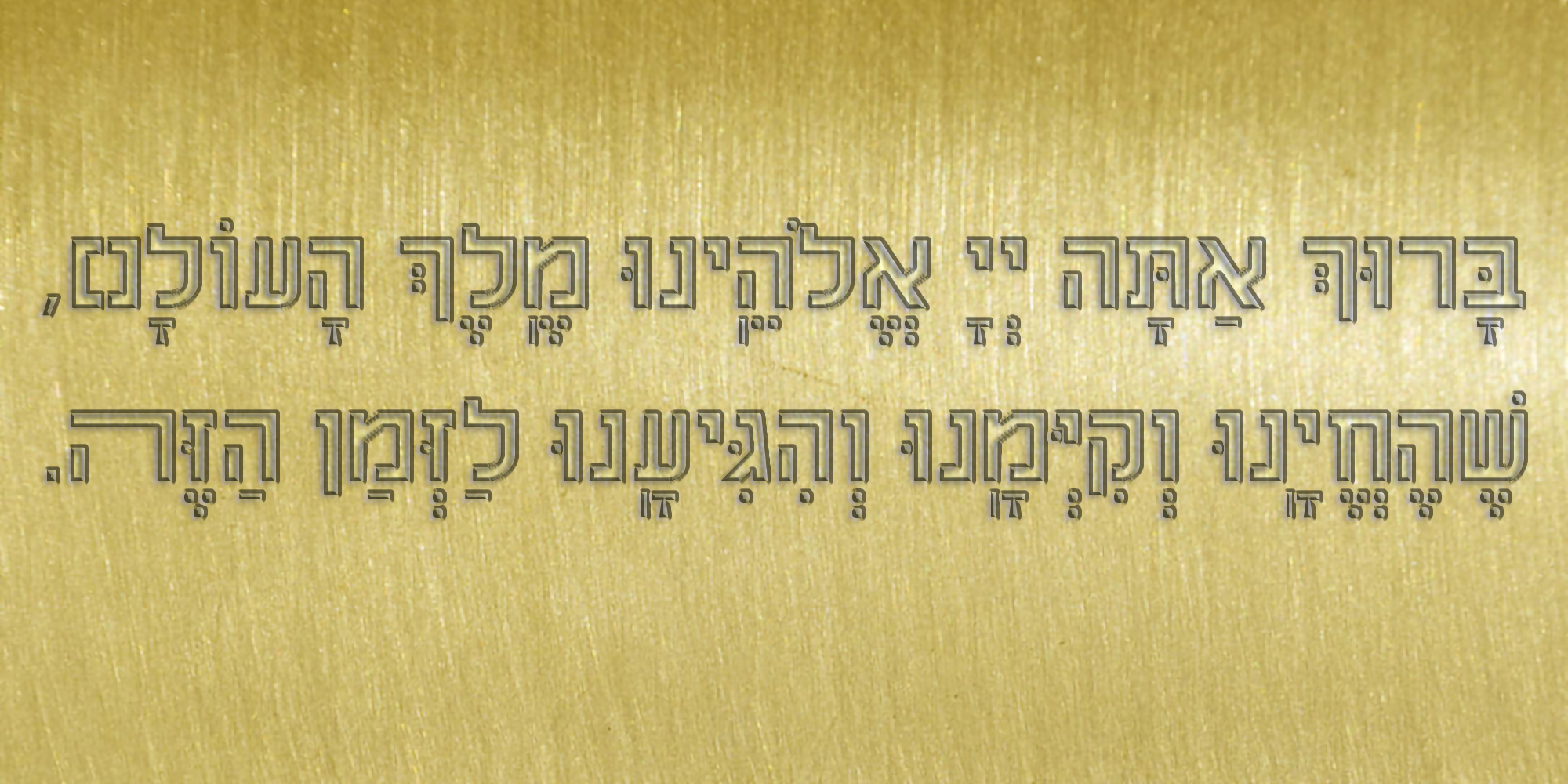
Hebrew Stencil Font is ideal for Jewish cultural centers, Hebrew language education materials, synagogue signage, Israeli heritage projects, religious studies publications, Bar/Bat Mitzvah invitations, Judaica art galleries, and Middle Eastern cultural exhibitions. This distinctive typeface brings Hebrew script authenticity and stencil functionality to any design project celebrating Jewish heritage and Hebrew linguistic traditions.
What makes Hebrew Stencil Font exciting is its unique combination of traditional Hebrew calligraphy with industrial stencil aesthetics that creates a powerful bridge between ancient religious traditions and contemporary design functionality. The cut-out letterforms maintain proper Hebrew script proportions while providing the practical benefits of stencil application. Each character preserves the sacred beauty of Hebrew writing while enabling modern reproduction methods, making it perfect for projects that honor Jewish culture while meeting contemporary design needs.
The Hebrew Stencil Font family typically includes regular weight with complete Hebrew alphabet, vowel marks (nikud), numbers, punctuation marks, and Jewish symbols. The authentic right-to-left text flow maintains proper Hebrew script conventions while the stencil construction provides practical functionality for signage, educational materials, and cultural preservation projects.
Whether you're developing Jewish cultural institutions or creating Hebrew educational materials, Hebrew Stencil Font Free Download offers unmatched cultural authenticity and practical functionality. This meaningful typography choice transforms Hebrew text into accessible communications that resonate with Jewish communities and Hebrew language learners worldwide. The font's respectful construction ensures exceptional performance across cultural applications while maintaining its distinctive Hebrew character that makes every design project feel like a bridge between ancient wisdom and modern accessibility where tradition meets innovation in perfect cultural harmony.